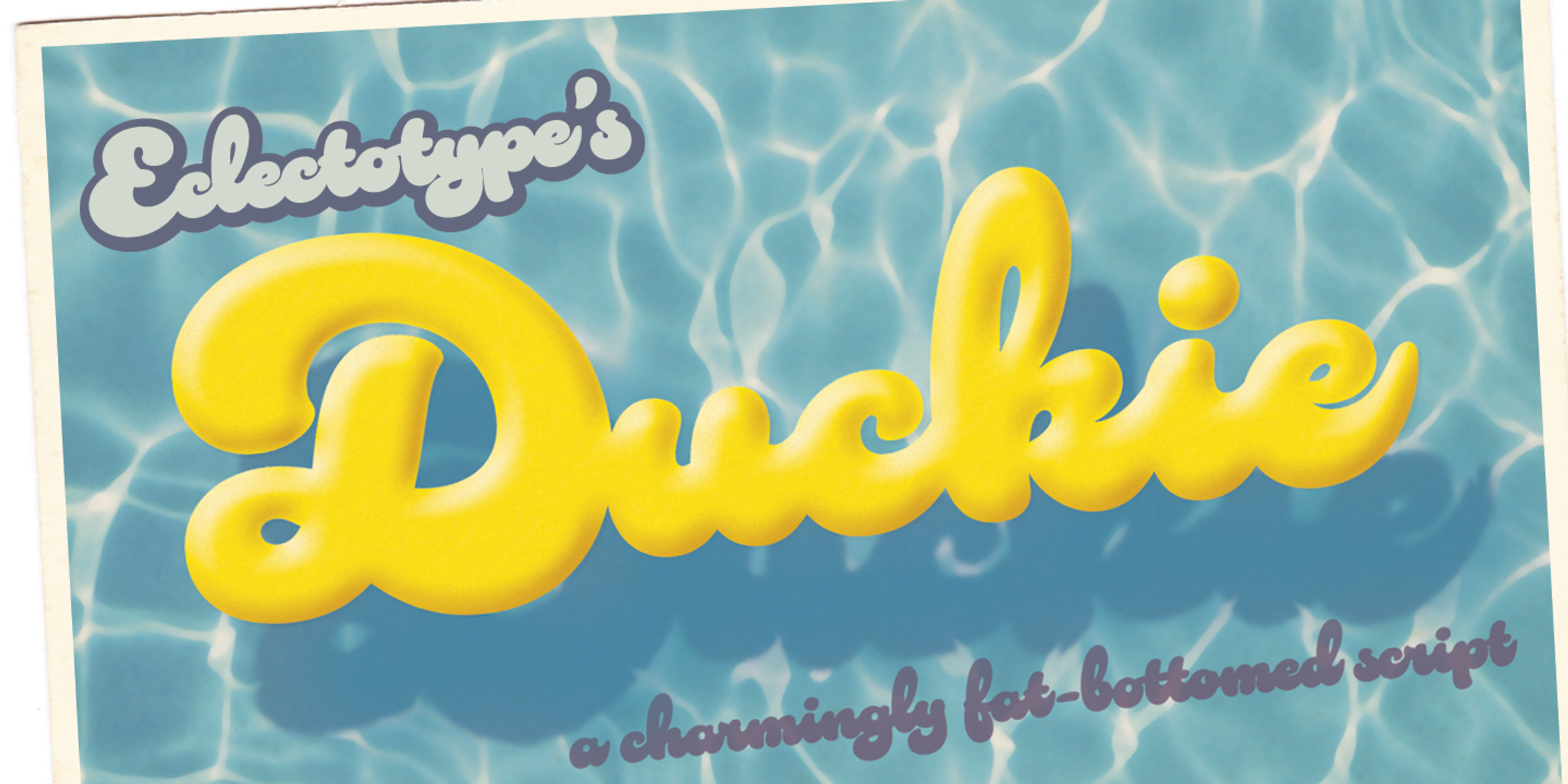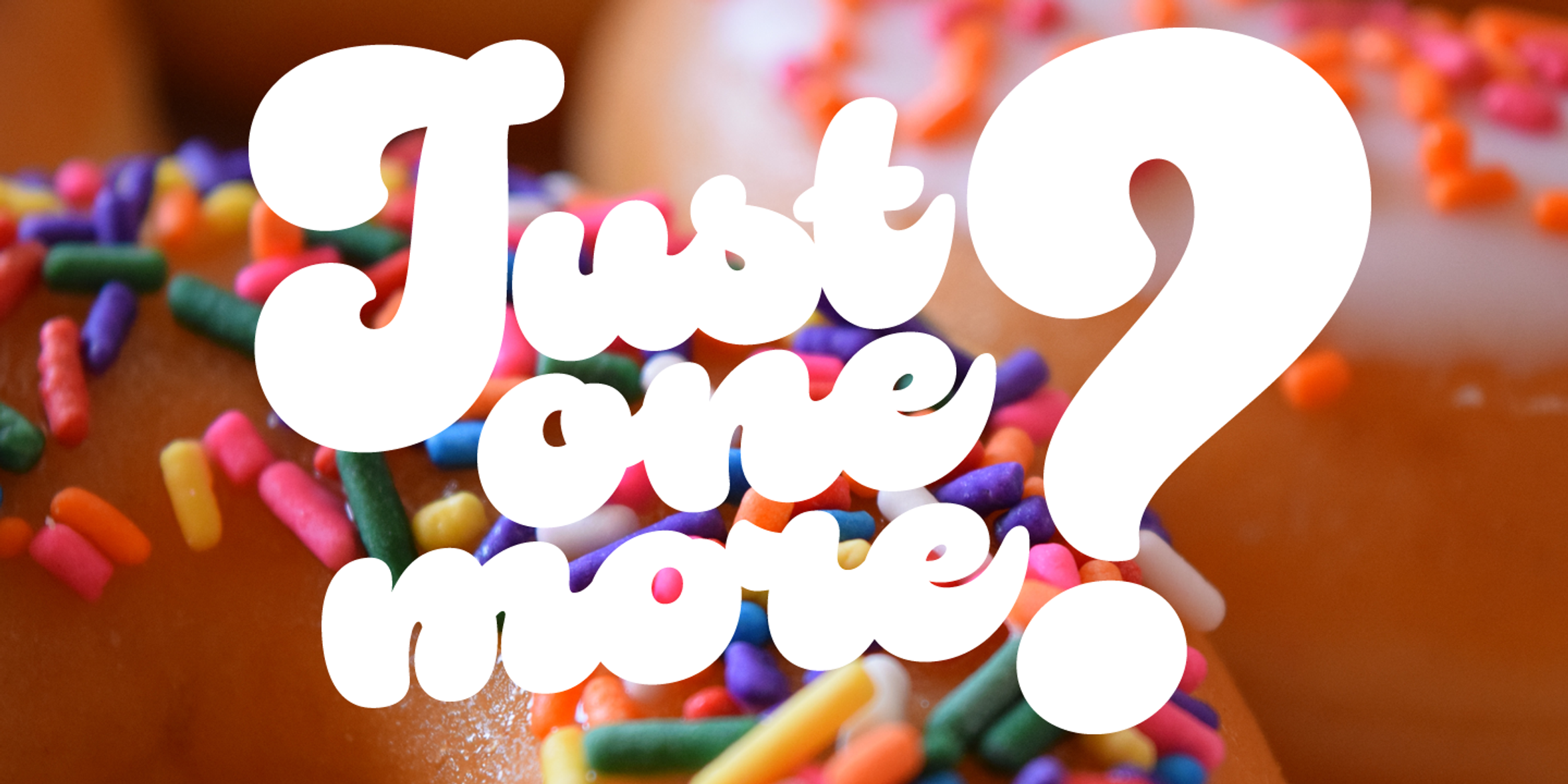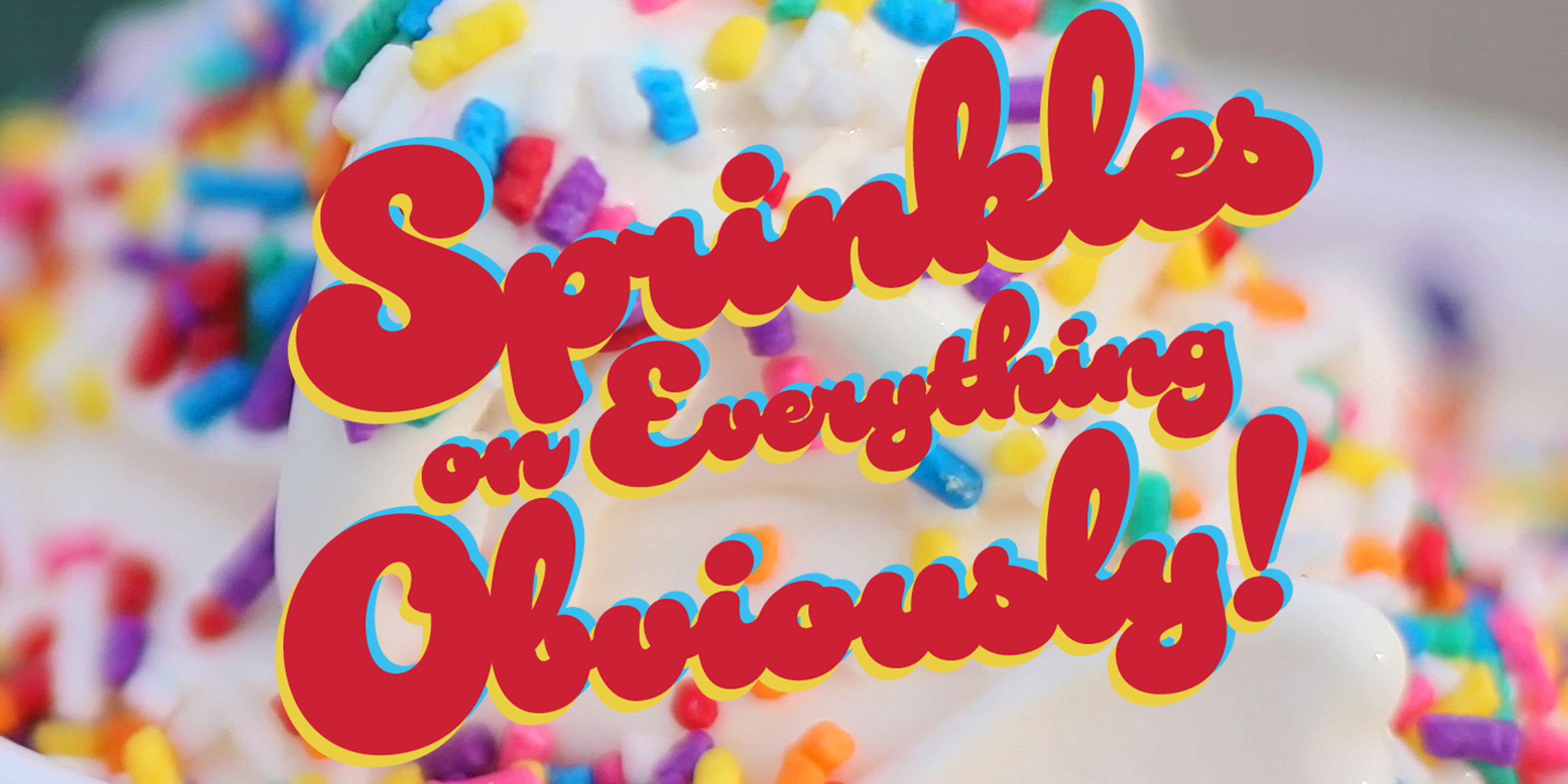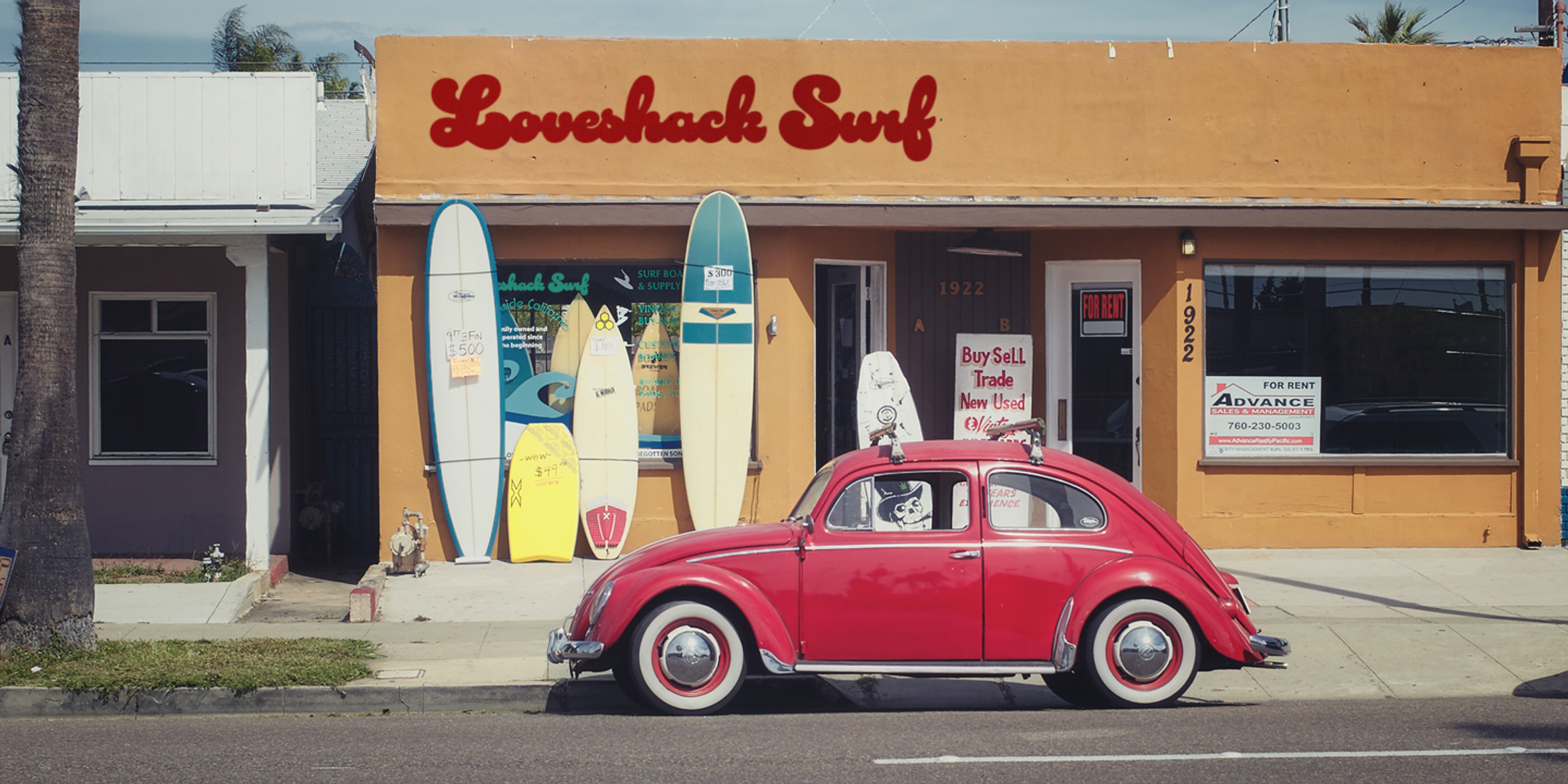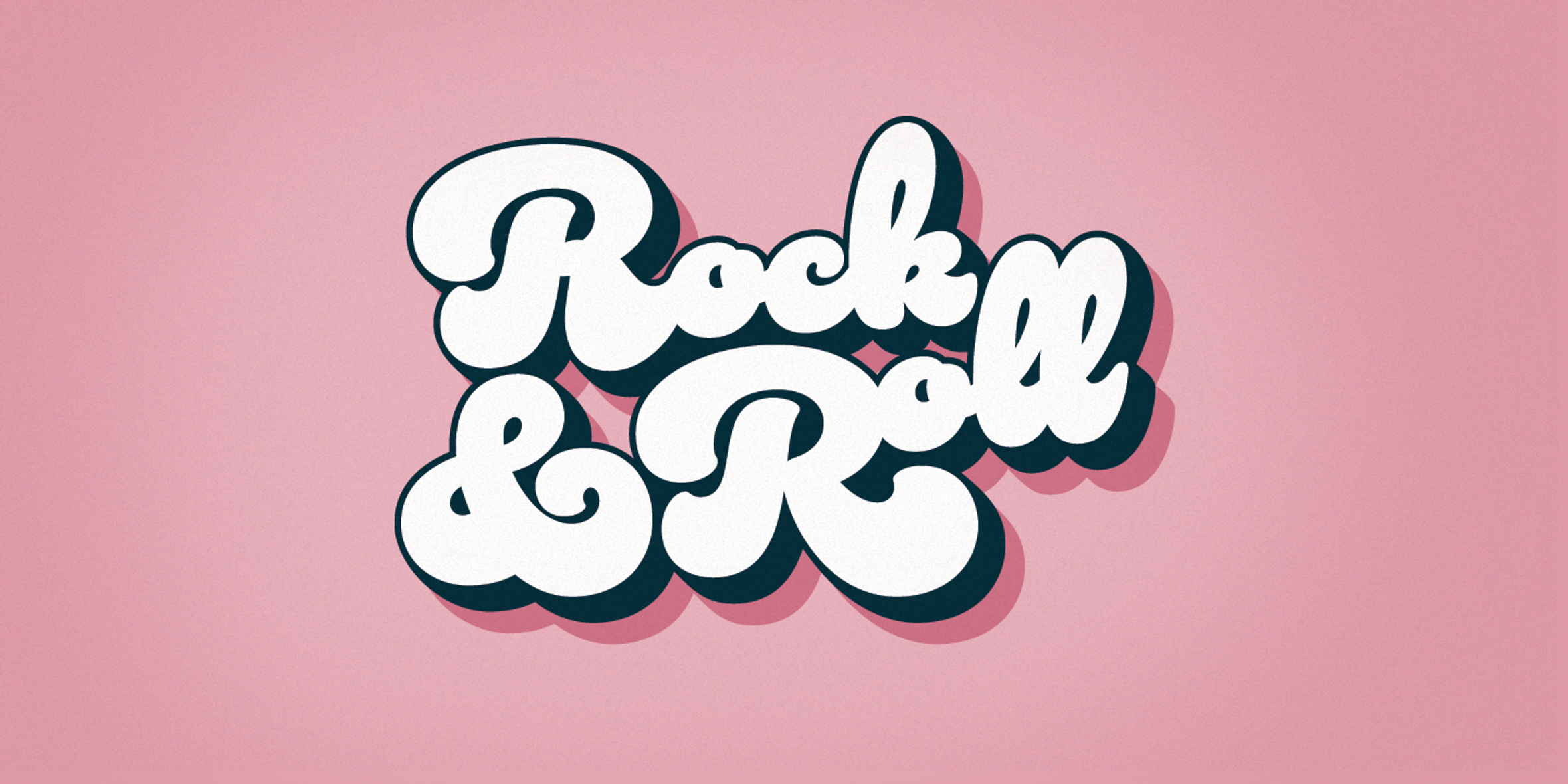
Duckie Font
Duckie Regular
Duckie
The battle against whitespace continues full-cream ahead with Duckie. This thick-bottomed script packs a whole lotta weight into the softest of punches. The forms feel familiar, like they’re straight out of funky disco album covers, but this is 100% an original design. Don’t let its retro charm dissuade you from taking it for a spin in more contemporary settings; it might just surprise you! Branding to billboards, pop-ups to packaging! But, pretty please, don’t use this in all-caps settings.
- Common Ligatures
- Swashes